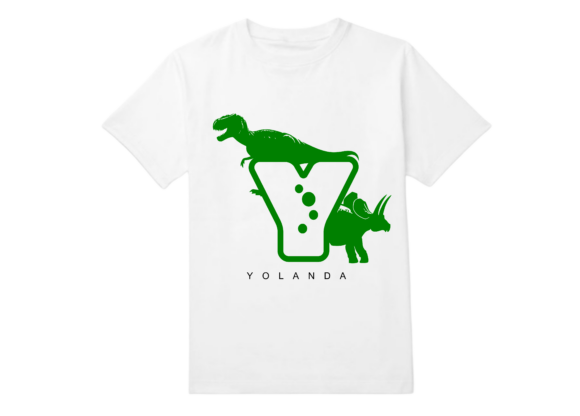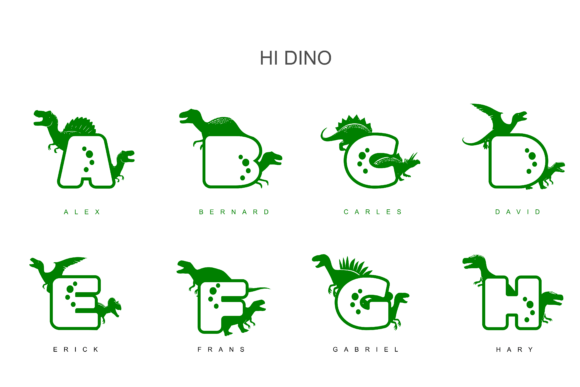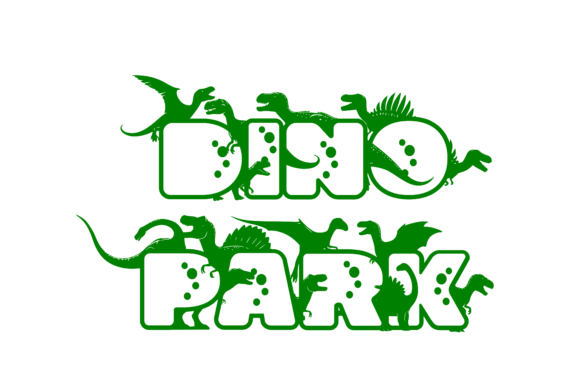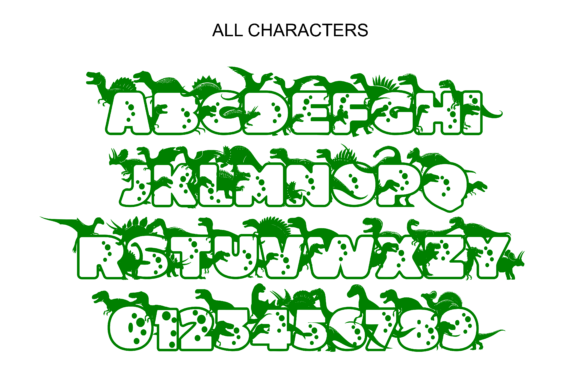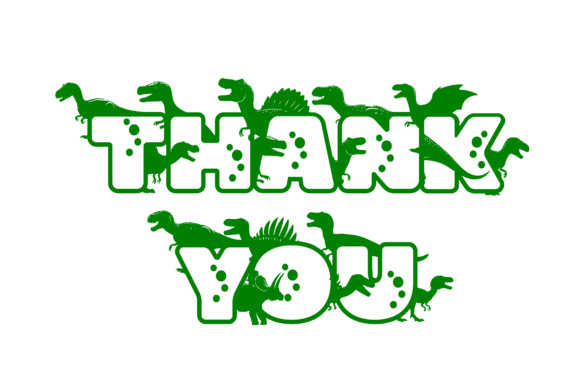
Introduction to Hi Dino Font
Have you ever stared at a blank page, waiting for the perfect font to ignite your creative spark? For designers, this moment is all too familiar. It’s the moment when the perfect font can make or break a project. And then, it happens – a font that breathes life into your design, elevating it to new heights. For many, this font is the Hi Dino Font, a game-changing typographic marvel that has been leaving designers in awe.
With its vibrant aura and transparent background, the Hi Dino Font is a design resource that’s hard to resist. Its high-quality design makes it a perfect addition to any creative project, and the best part? It’s available for free download, making it accessible to designers of all levels.
As you embark on your creative journey, the Hi Dino Font is sure to be your trusted companion, guiding you towards artistic revelation and typographic wisdom.
Key Features of Hi Dino Font
- High quality: This font is designed with high-quality graphics, ensuring a crisp and clear display on various devices.
- Transparent background: The font’s transparent background allows for easy integration with any design, providing flexibility and versatility.
- Size and resolution: The font is available in various sizes, ranging from 10 to 1000 points, and has a resolution of 300 DPI for high-quality printing.
- Unique and creative design: The Hi Dino Font features a unique and creative design, making it perfect for projects that require a touch of personality and style.
- Perfect for digital and print projects: This font is suitable for both digital and print projects, including logos, branding, and creative materials.
Honest Review: Hi Dino Font
As a designer, I’ve worked with a lot of fonts, but the Hi Dino Font caught my attention with its playful and fun vibe. I downloaded it for free from a reputable website, which is always a bonus when it comes to design resources.
One of the things that works well with the Hi Dino Font is its versatility. It’s perfect for creative projects that require a whimsical touch, such as children’s books, party invitations, or even social media graphics. The font is also available with a transparent background, which makes it easy to use in any design project.
Here are some of the key features of the Hi Dino Font:
- Translucent background makes it easy to use in any design
- Works well for children’s books, party invitations, and social media graphics
However, I did encounter a few limitations. The font is only available in a limited range of styles and sizes, which may not be ideal for more complex design projects.
Overall, I’d give the Hi Dino Font 4 out of 5 stars. It’s a great addition to any designer’s toolkit, especially for creative projects that require a playful touch. ⚠️ Just be aware of the limitations, and you’ll be all set to unleash your creativity with this fun and quirky font! ✨
The Hi Dino Font is a versatile font that can be used in a variety of creative projects, including:
- Typography projects
- Designing for social media
- Use the font with a transparent background for a unique look
- Combine the font with other design elements for a cohesive look
Alternatives to Hi Dino Font
Comic Sans MS is a playful, cursive font often used in creative projects requiring a casual tone. It’s available for free download and can be used on a transparent background. This font is ideal for projects that need a lighthearted and approachable feel.
Compared to Hi Dino Font, Comic Sans MS is more rounded and lacks the bold, dynamic feel of Hi Dino Font. However, it’s a better option for projects requiring a more relaxed atmosphere.